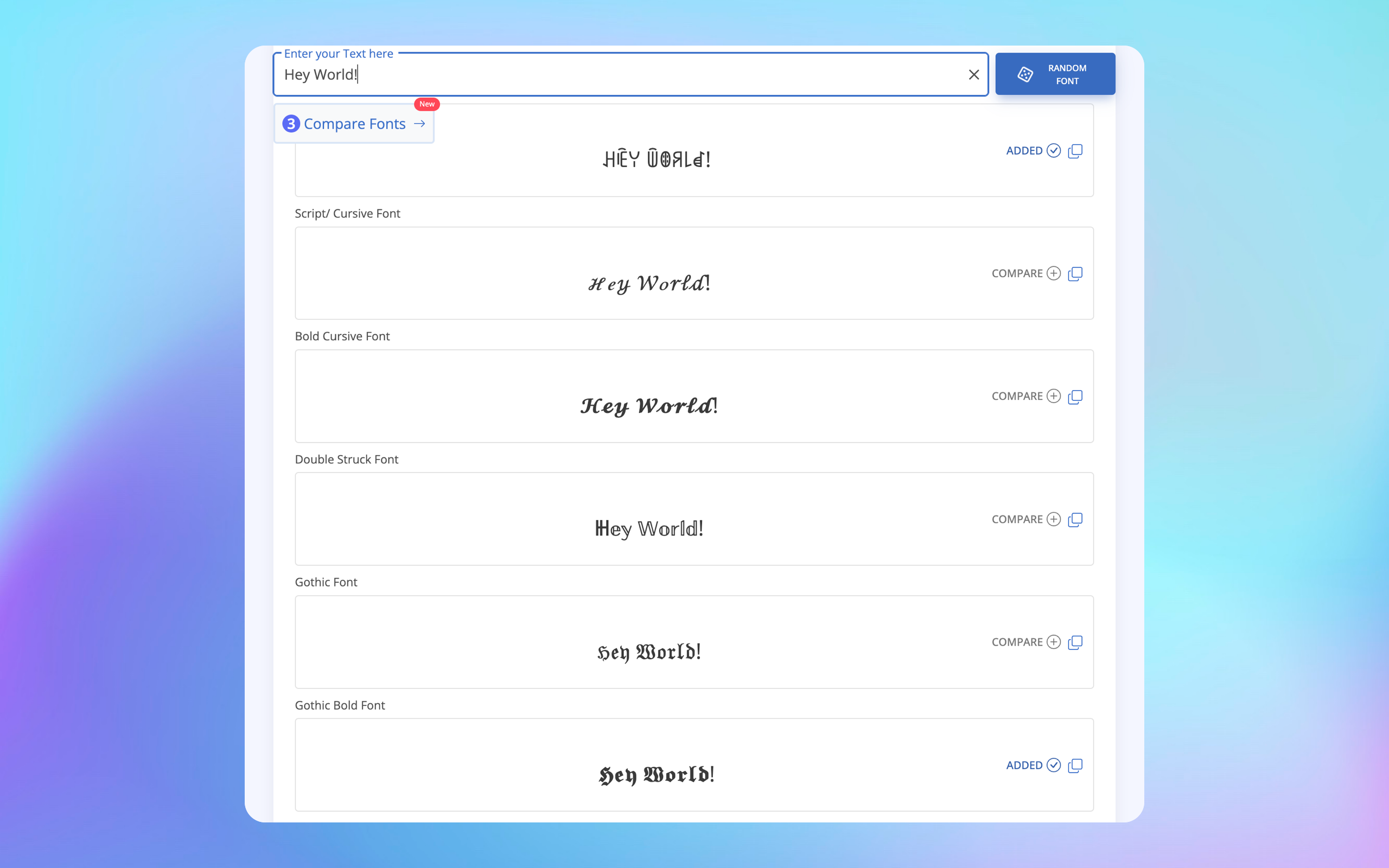
Font Generator: Make Your Text Look Cool with Unicode Characters - ๐ ต๐ พ๐ ฝ๐ ๐ ถ๐ ด๐ ฝ๐ ด๐๐ ฐ๐๐ พ๐
Ever wondered how people get those fancy looking usernames on Instagram? Or how they make their Twitter bio look all stylish with different fonts? Well, here's the secret - they're using Unicode font generators. And honestly, once you know about them, you'll probably use them all the time too. One of my favorites is fontgenerator.cc - it's got tons of different styles to play with.
So What's a Unicode Font Generator Anyway?
Okay, so these things are basically websites where you type in normal text and it spits out fancy-looking versions. The cool part? It's not actually changing the font (even though everyone calls it that). Instead, it's using special characters that already exist in something called Unicode to make your text look different.
Think of it like this - somewhere out there, computer nerds made sure there's a fancy version of every letter already built into your phone and computer. These generators just know where to find them.
How Does This Magic Work?
It's actually pretty simple when you break it down:
You type something normal like "Hello World"
The website looks at each letter you typed
It finds the fancy Unicode version of that letter
Boom - you get something like "โ๐๐๐๐ ๐๐ ๐ฃ๐๐"
The best part? Since these aren't real fonts but just special characters, they work pretty much everywhere. You can copy and paste them anywhere and they'll look the same.
Why Bother Using These Things?
Works Everywhere
You know how Instagram doesn't let you change fonts in your bio? Or how Facebook posts all look the same? These generators are your workaround. Since it's just text (special text, but still just text), it works on basically every app and website.
Zero Setup Required
No downloading fonts. No installing anything. No messing with settings. Just type, copy, paste. Done. It literally takes like 5 seconds.
Stand Out from the Crowd
Let's be real - when everyone's posts look the same, having different text styles makes you stand out. Whether it's a gaming username or a social media bio, it just looks cooler.
Where Can You Actually Use This Stuff?
Pretty much anywhere you can type:
Social Media
Instagram bios and captions (this is probably what most people use it for)
Twitter posts when you want to emphasize something
Facebook posts and comments
TikTok descriptions
Even LinkedIn if you want to be a bit different (but maybe don't go too crazy there)
Messaging
WhatsApp status and messages
Discord (gamers love this stuff)
Telegram
Basically any chat app
Other Random Places
Gaming usernames (if the game allows it)
YouTube comments
Forum signatures
Email signatures (though maybe keep it professional)
Some Popular Styles You'll See
Here's what people usually go for:
๐๐จ๐ฅ๐ - When you really need to make a point
๐๐ต๐ข๐ญ๐ช๐ค - For that classy touch
๐ป๐๐๐ ๐ฑ๐๐๐ - When you're feeling fancy
๐ ฑ๐ พ๐๐ ด๐ ณ - Fun but can be hard to read
๐ธ๐๐๐๐พ๐๐ - For when you want to be extra
๐๐๐๐๐๐๐๐๐ - Gives that coding vibe
Real Talk: How to Use This Without Being Annoying
Look, just because you can make all your text fancy doesn't mean you should. Here's how to not be that person:
Do This:
Use it for usernames and bios - that's perfect
Pick one style and stick with it
Use it to highlight important stuff
Make sure people can actually read what you wrote
Don't Do This:
Write entire paragraphs in bubble text (please don't)
Use it in work emails (unless your job is super chill)
Mix five different styles in one post
Use the really weird ones for important info
The Not-So-Great Parts
I'll be honest, these generators aren't perfect:
If someone's using a screen reader (for vision problems), fancy text can confuse it
Super old phones might just show boxes instead of your cool text
You can't search for fancy text the same way as normal text
Some styles are really hard to read on small screens
Quick Example
Let's say you want to make your Instagram bio pop. You could go to font generator , type in "Coffee Addict โ Dog Mom ๐" and get something like:
Unicode font generators are one of those simple tools that just make life a bit more fun online. They're free, easy to use, and work pretty much everywhere. Sites like fontgenerator.cc have made it super simple - you literally just type and copy.
Just remember - with great power comes great responsibility. Use your newfound fancy text powers wisely. Nobody wants to decipher your entire Instagram feed written in gothic letters.
Now go make your boring username look awesome. You know you want to.